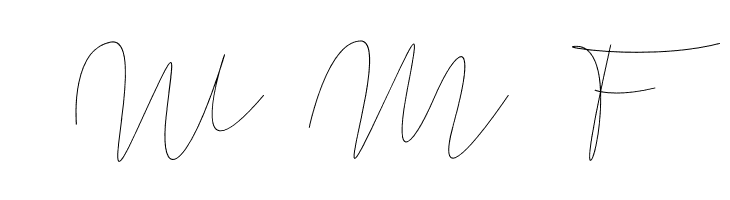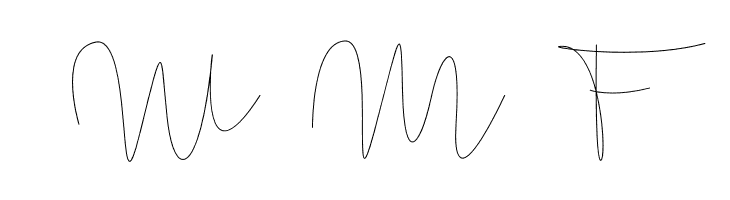
Wakeboard Studio Font
A bold, rounded, handwritten-style sans-serif font.
Biotrip Serif Bold Font
A bold, geometric sans-serif font with uppercase and lowercase letters, numerals, and symbols.
Kolbano regular Italic Font
A stylish, italic serif font suitable for headlines and branding.
Salvador PERSONAL USE ONLY! Font
A modern, geometric sans-serif font with bold weight and distinctive letterforms.
Caldstone SemiBold Italic Font
A bold, italic sans-serif font with a modern style.
Resolide Serif PERSONAL USE Regular Font
A serif typeface with high contrast and elegant design, suitable for formal and sophisticated uses.
Mickle Regular Font
A bold, vintage serif font with decorative features.
Tuncho Plonko Font
A bold, rounded handwritten font suitable for casual and fun designs.
Shifa Rame Font
A fun, handwritten, casual font suitable for informal designs.
Nirakolu Font
A playful, rounded handwritten font suitable for casual and fun designs.
Rumbloon Font
A bold, bubbly, and playful display font with rounded shapes.
Super Kidpop Regular Font
A playful, rounded display font with bold, bubbly characters.
Bitcount Ink Regular Font
A pixelated, dotted font with a digital, playful style.
Bitcount Grid Single Ink Regular Font
A pixelated, dotted font with a digital, modern style.
Bitcount Grid Single Regular Font
A dotted, pixelated font with a playful, modern style.
Bitcount Grid Double Regular Font
A pixelated, dotted font with a digital, playful style.
Bitcount Regular Font
A dotted, pixelated font with uppercase, lowercase, numbers, and symbols.
Birthstone Bounce Regular Font
A stylish, cursive handwritten font with a flowing, elegant appearance.
Birthstone Regular Font
A stylish, cursive handwritten font with elegant curves.